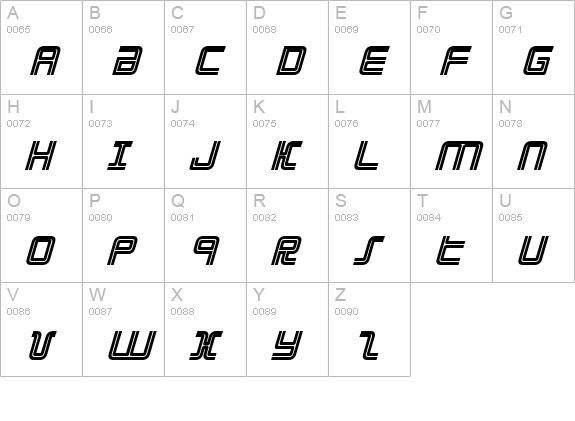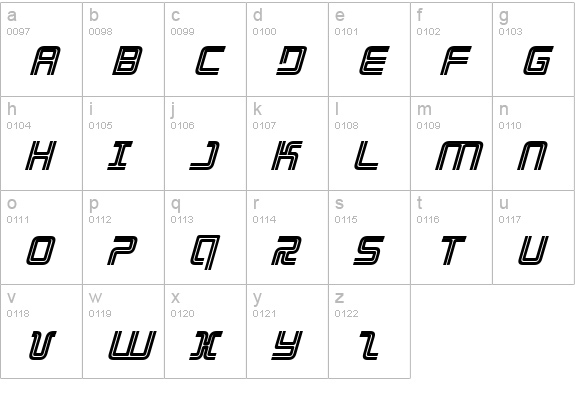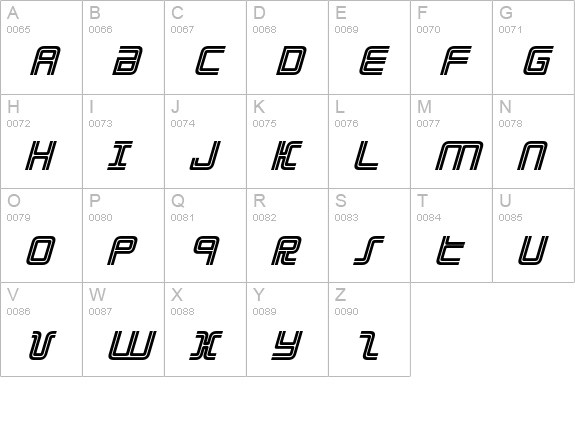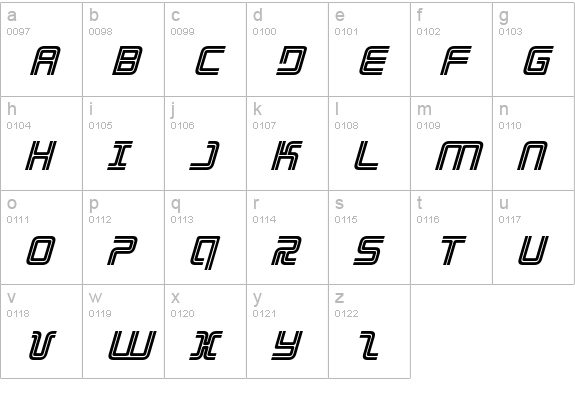
Election Day Bold Italic is a strong, high-contrast, italic variant in the Election typeface family \xE2\x80\x94 well suited to headlines, attention-grabbing titles, and strong calls-to-action.
Election Day Bold Italic font is a striking and modern typeface perfect for making a bold statement. With its strong, bold strokes and italicized design, this font exudes confidence and authority. Whether you're creating election campaign materials, posters, or bold headlines, Election Day Bold Italic font is sure to make a lasting impression. And the best part? It's completely free to download at FontsMarket.com! Don't miss out on this opportunity to elevate your designs with this powerful and impactful font. Download Election Day Bold Italic font today and let your creativity shine!